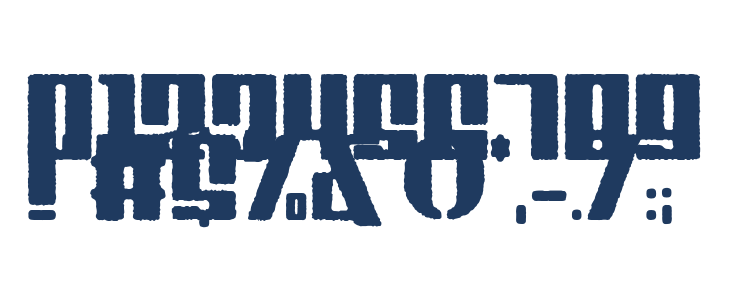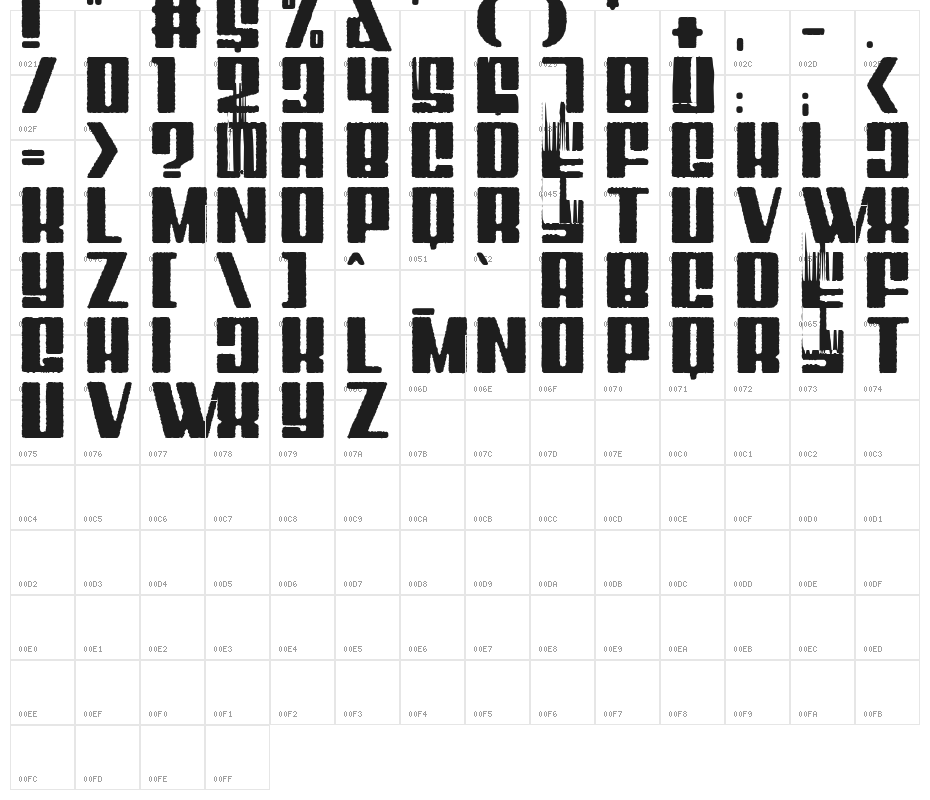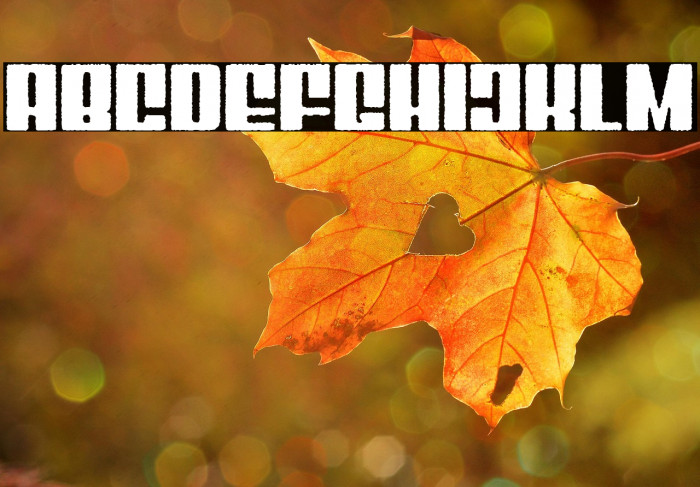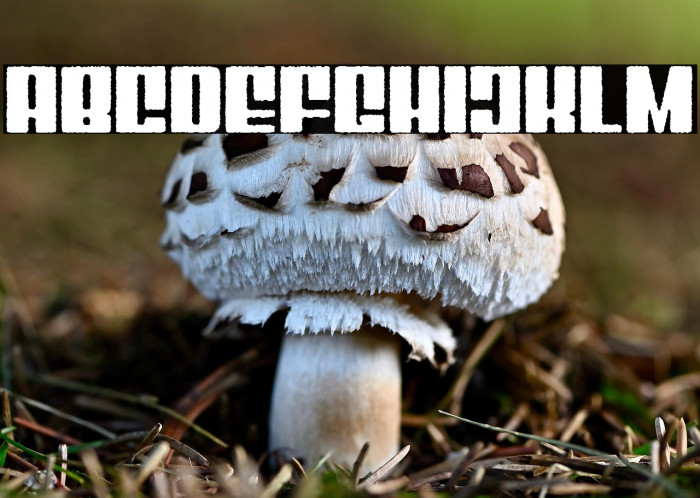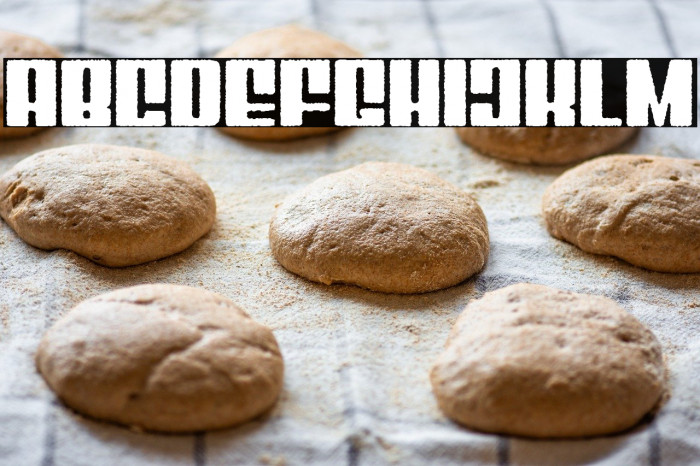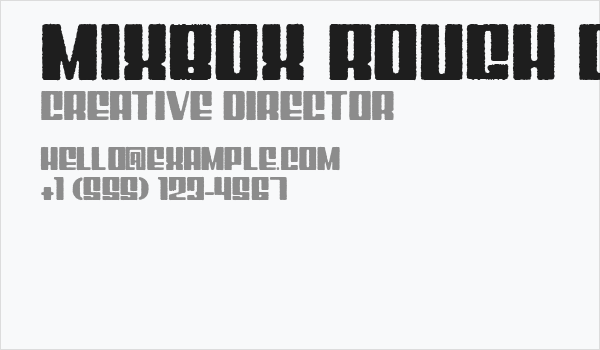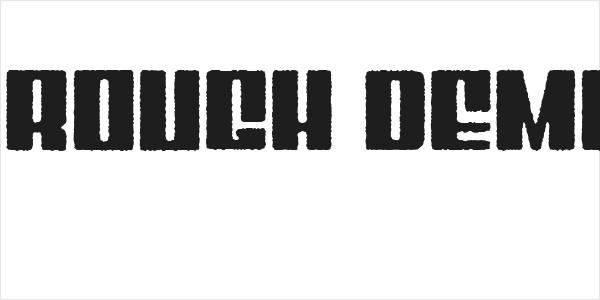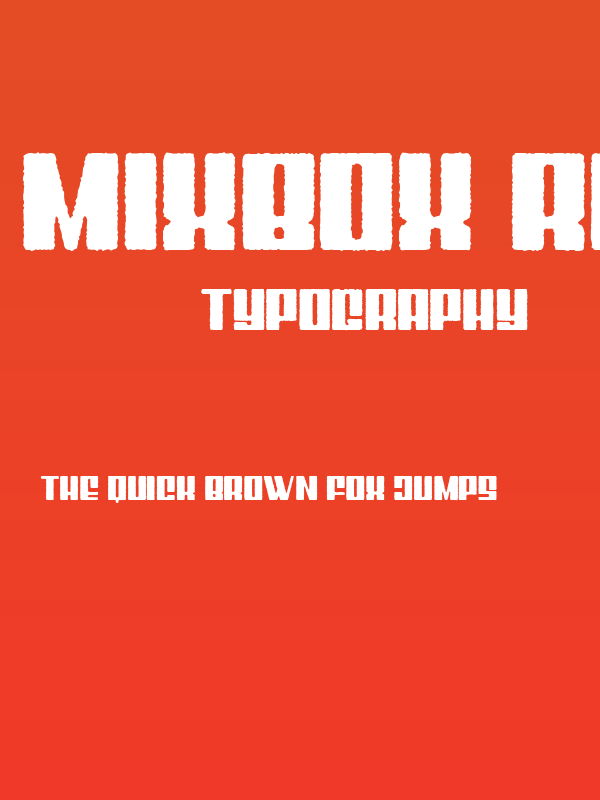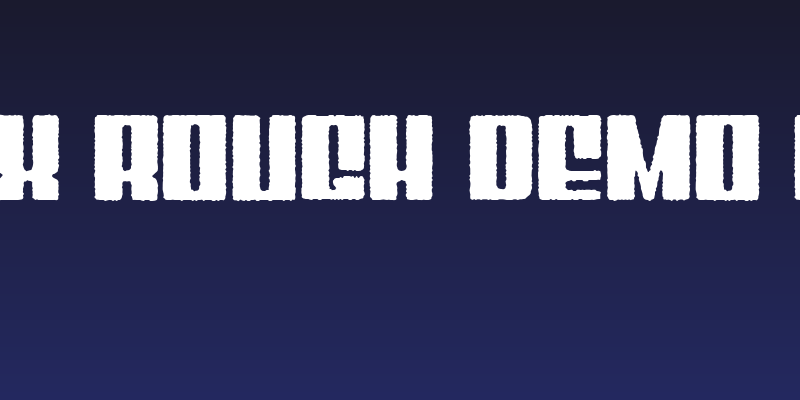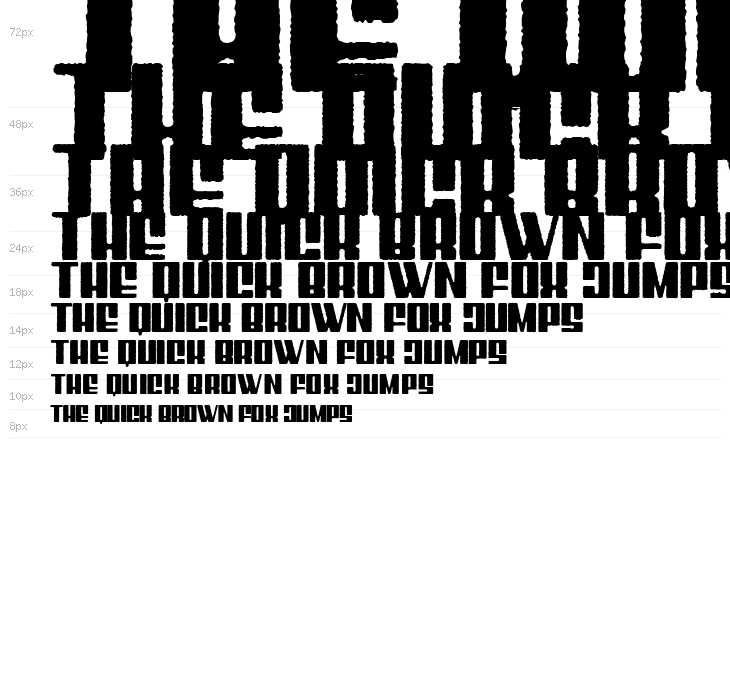
Mixbox Rough Demo Rough Font
Mixbox Rough Demo Rough Description
This font features a bold and rugged style with a distressed, textured appearance that gives it a rough, handcrafted feel. The characters are blocky and robust, with uneven edges that create a sense of movement and energy. The uppercase and lowercase letters maintain a consistent height, contributing to a uniform look, while the numbers and special characters follow the same bold and rough aesthetic. The font's unique style makes it stand out, perfect for projects that require a strong visual impact.
| Proposed Projects | Ideal for posters, logos, branding, and any design needing a bold, impactful statement. |